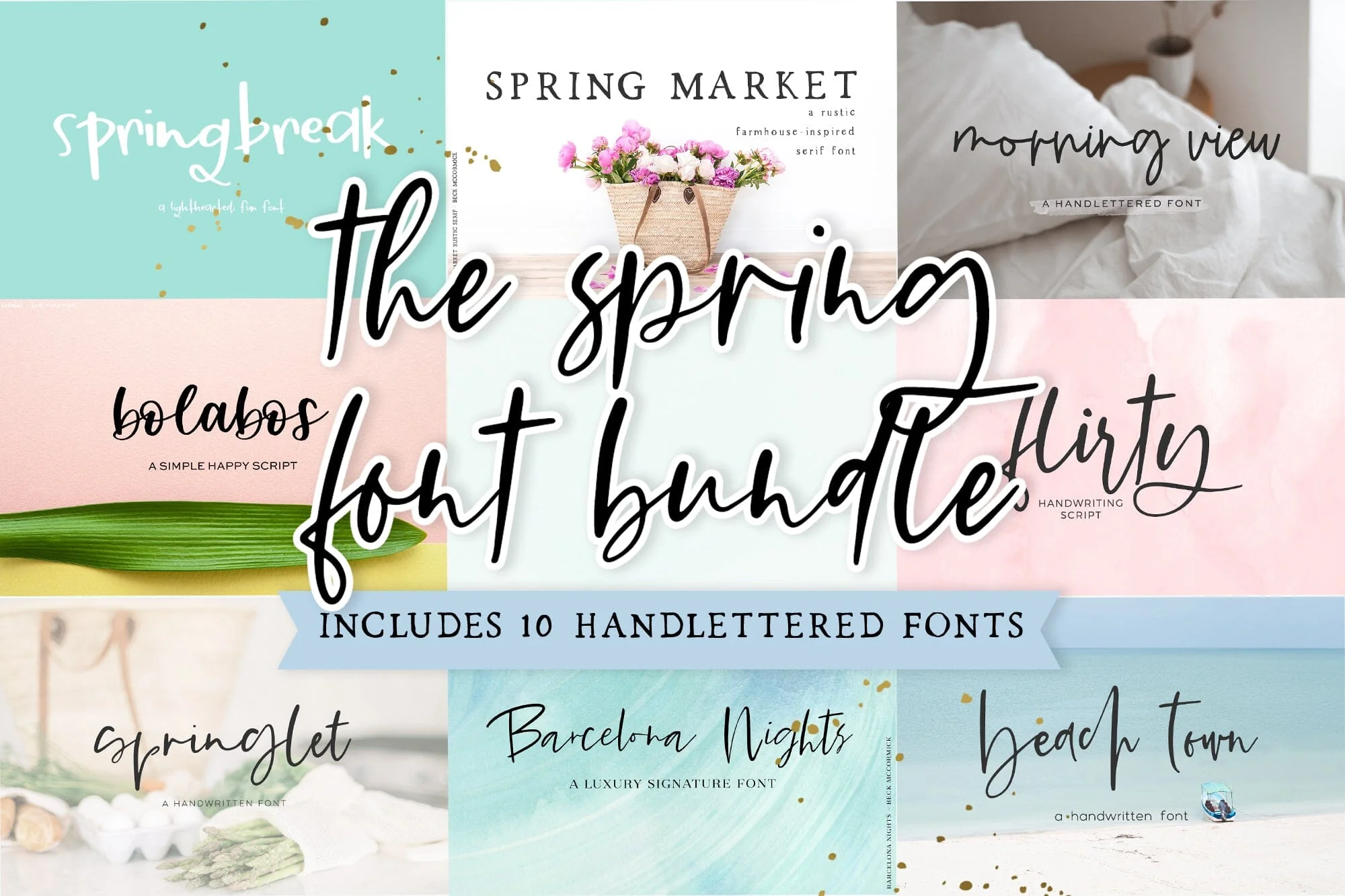
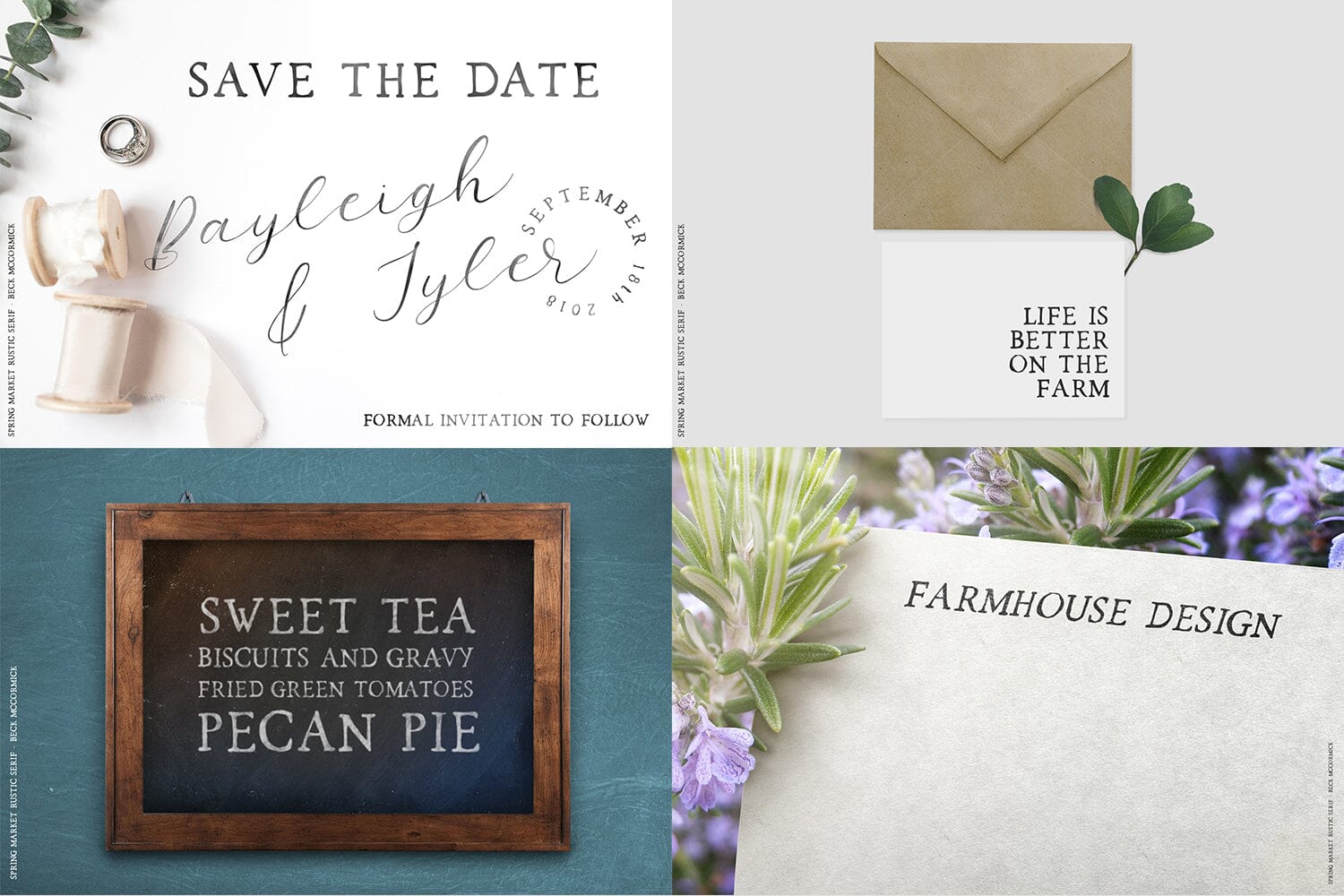
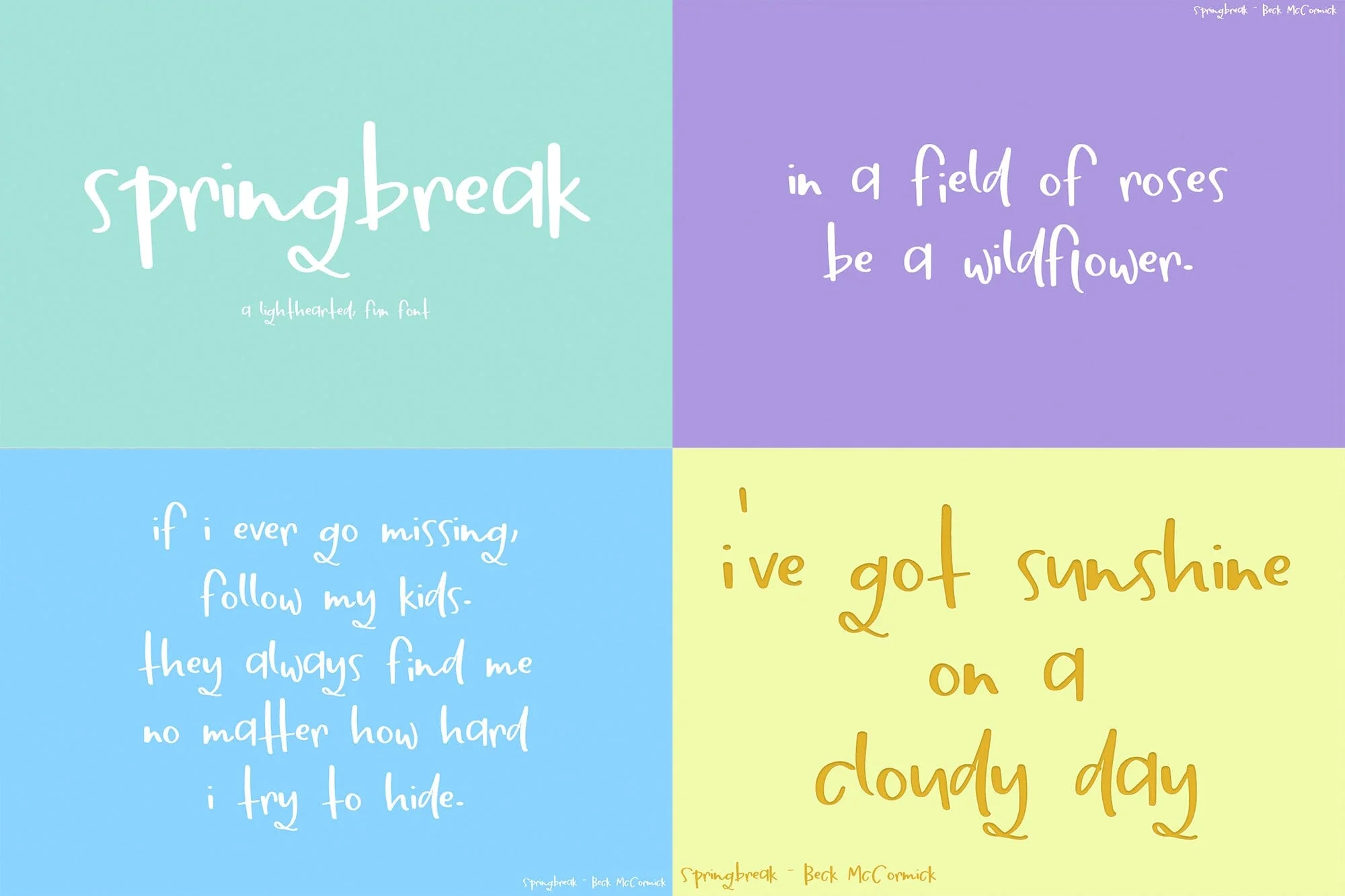
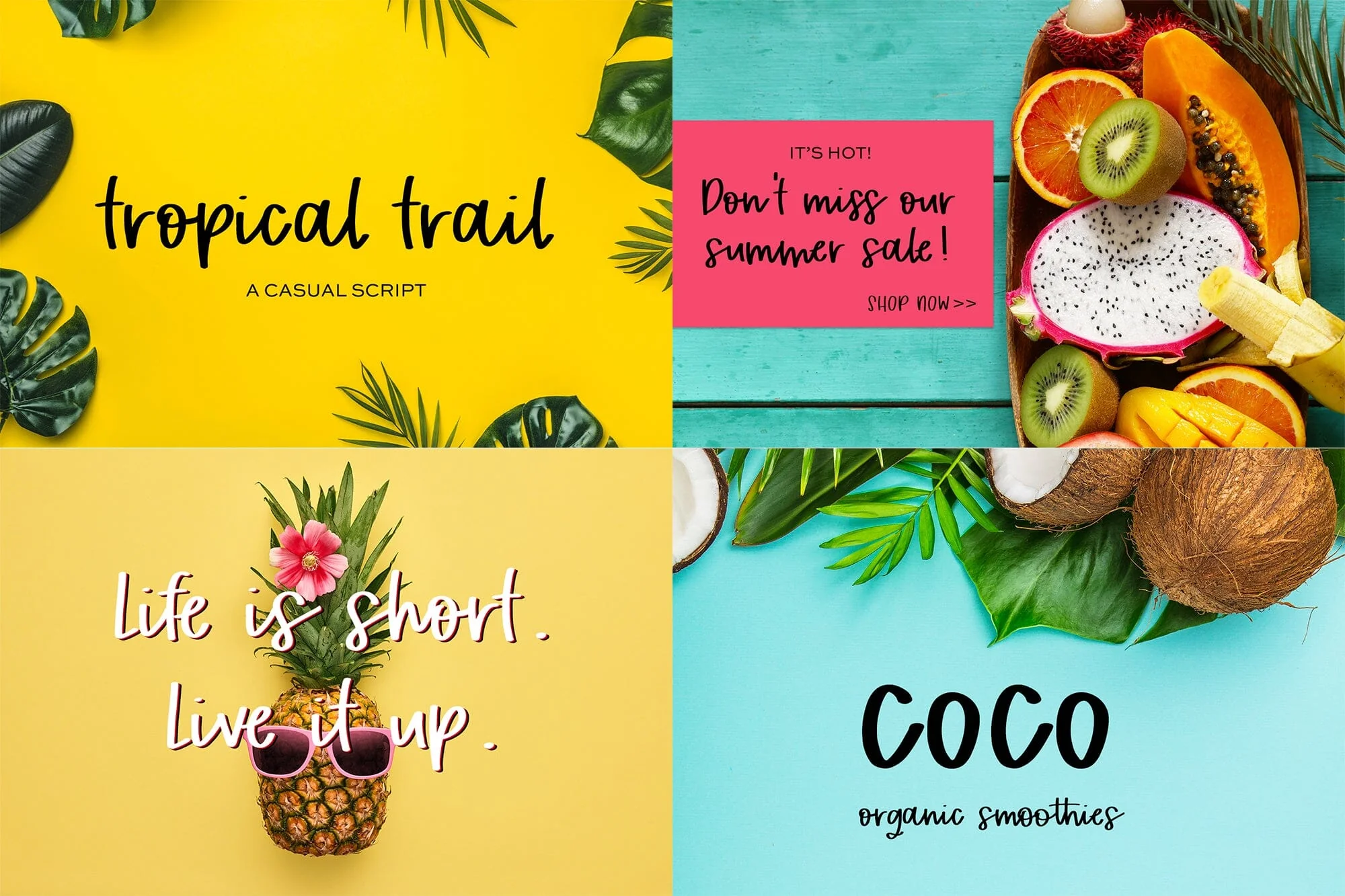
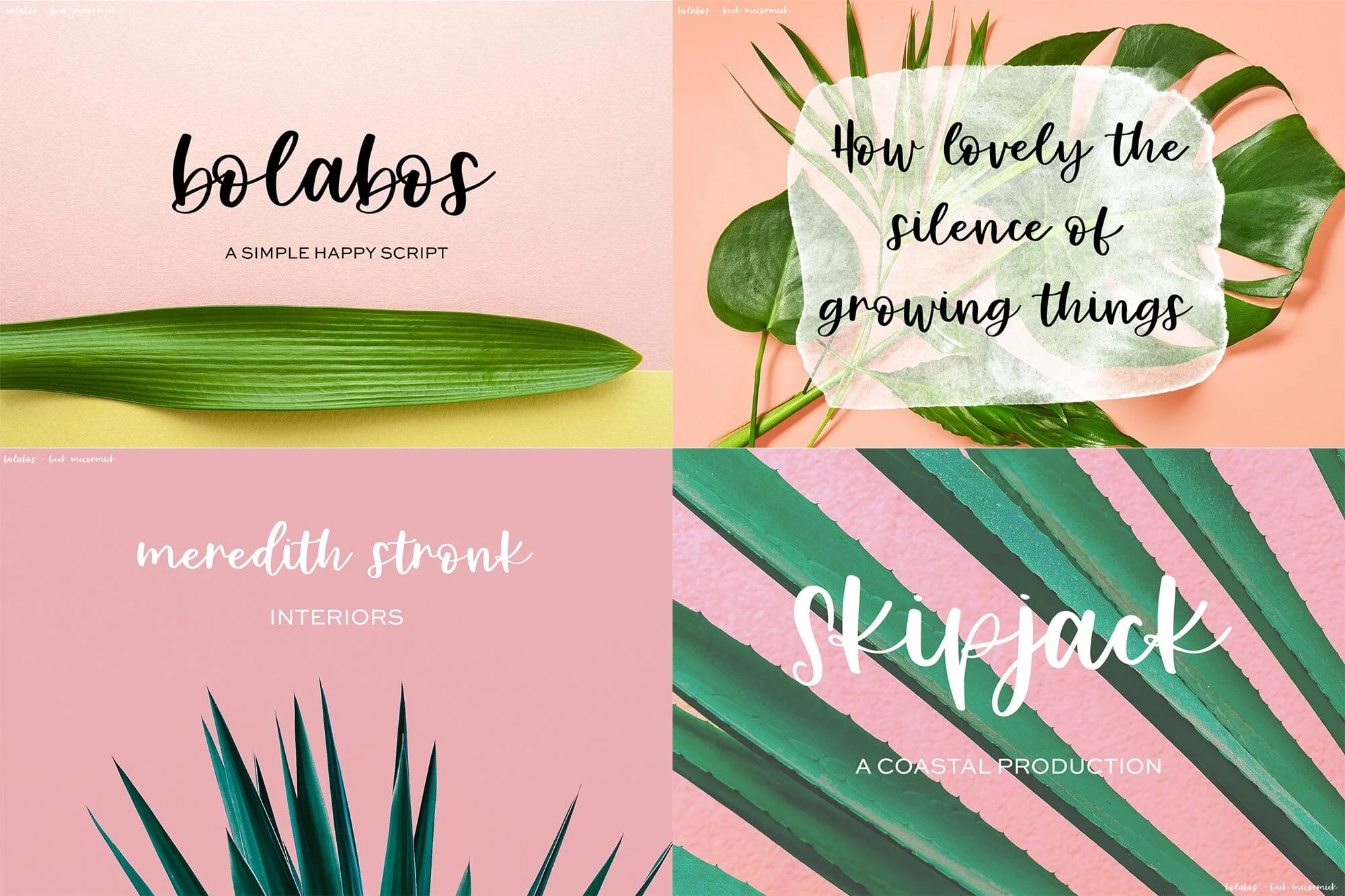
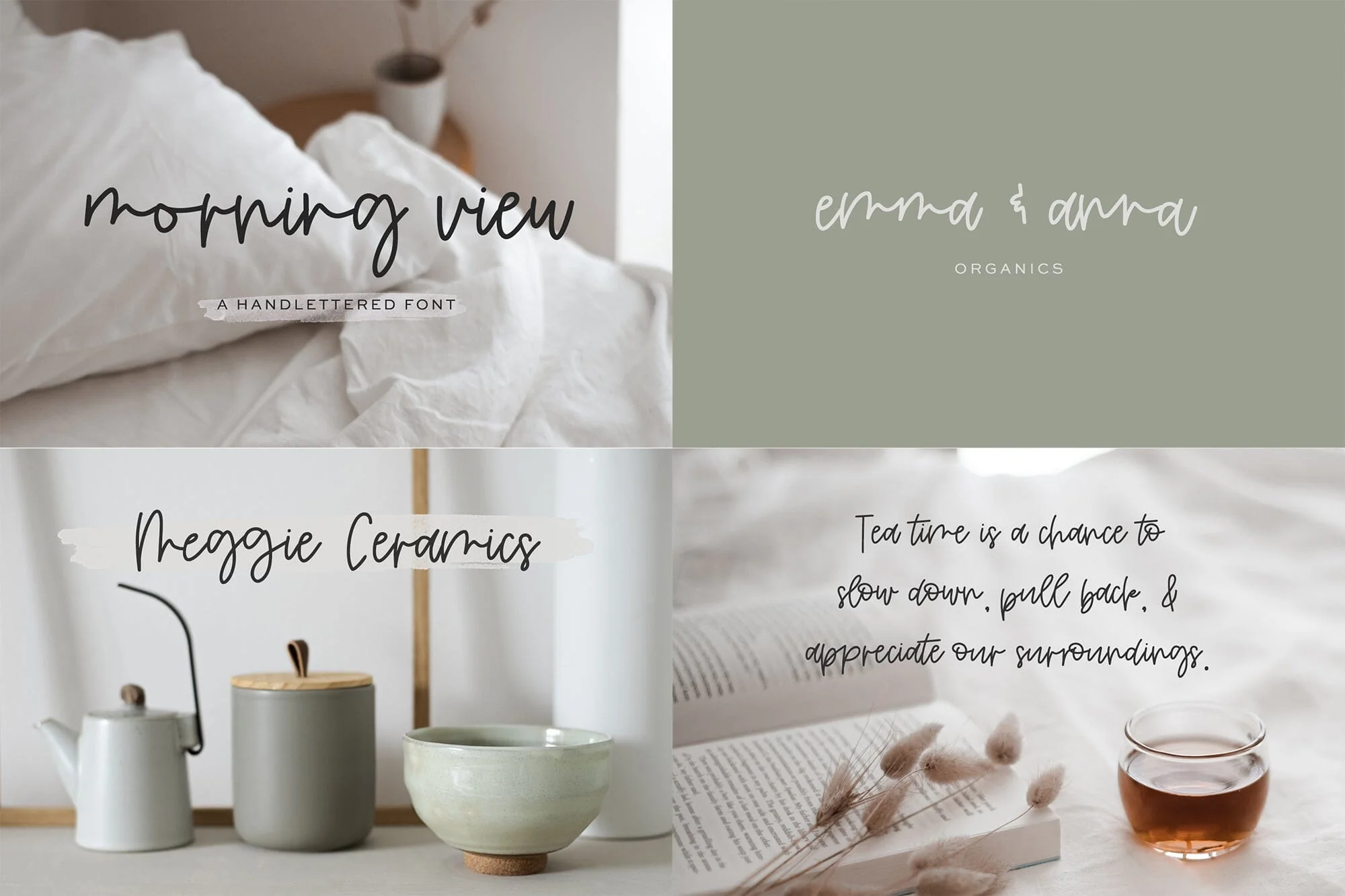
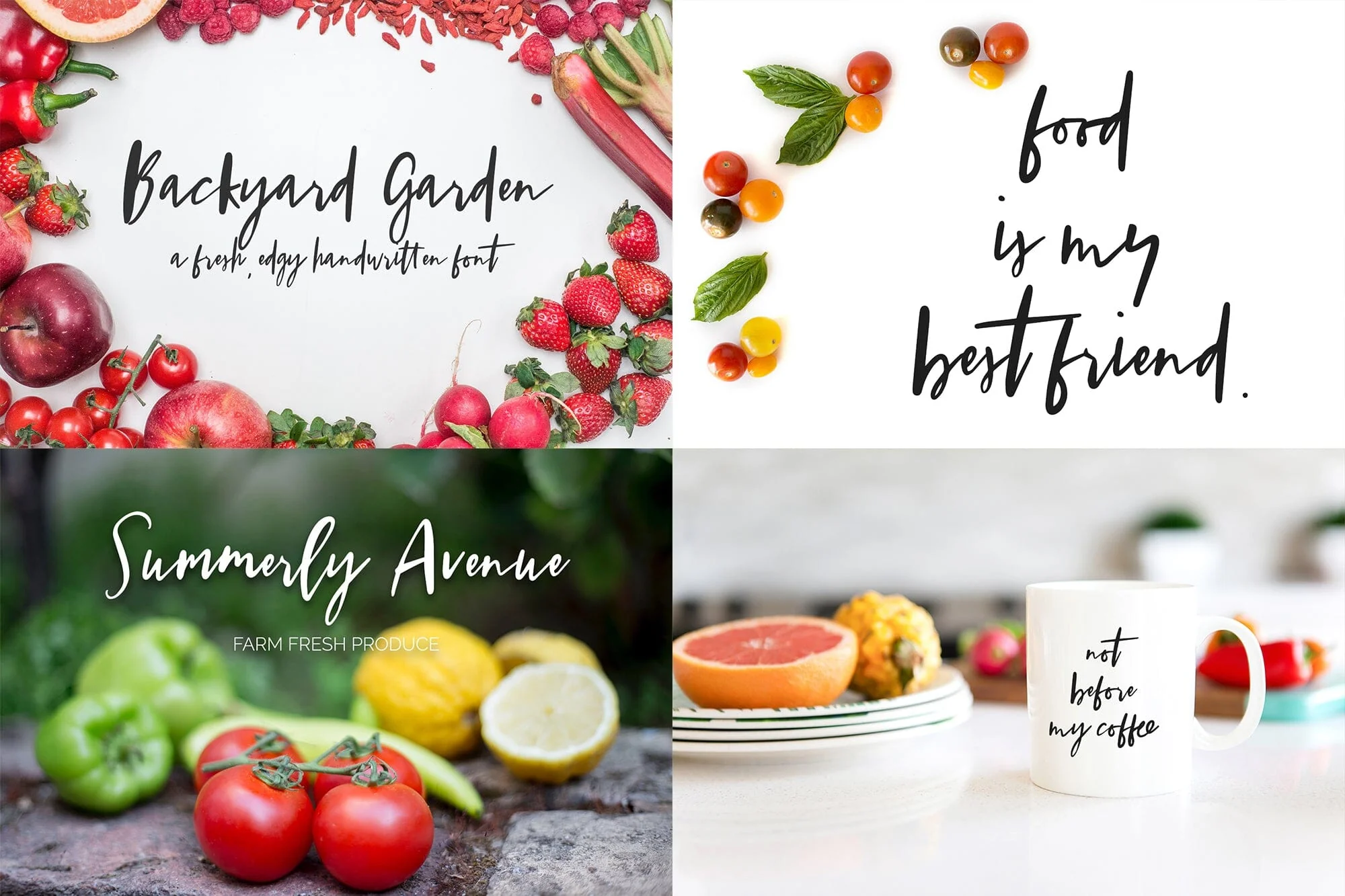
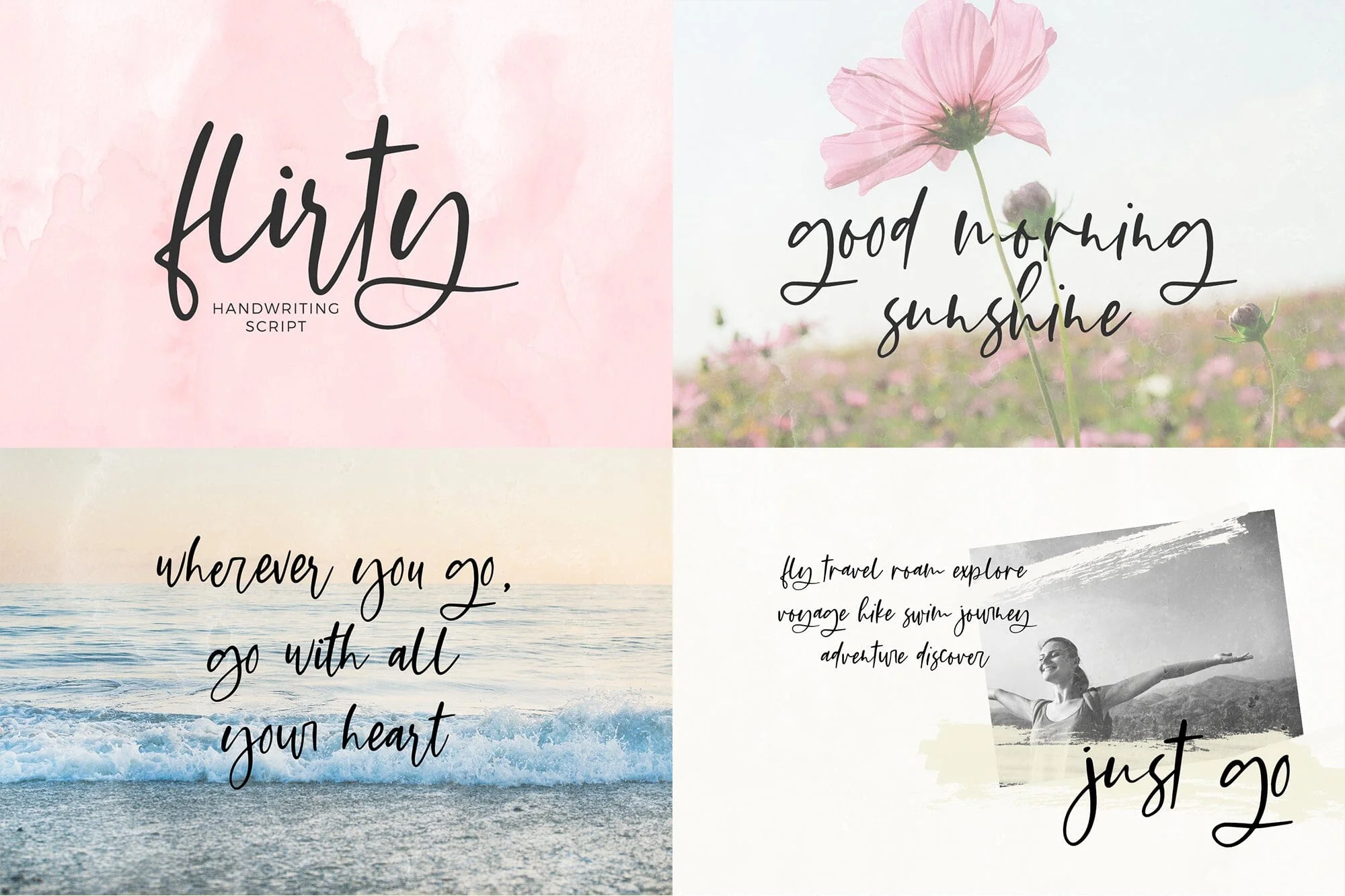
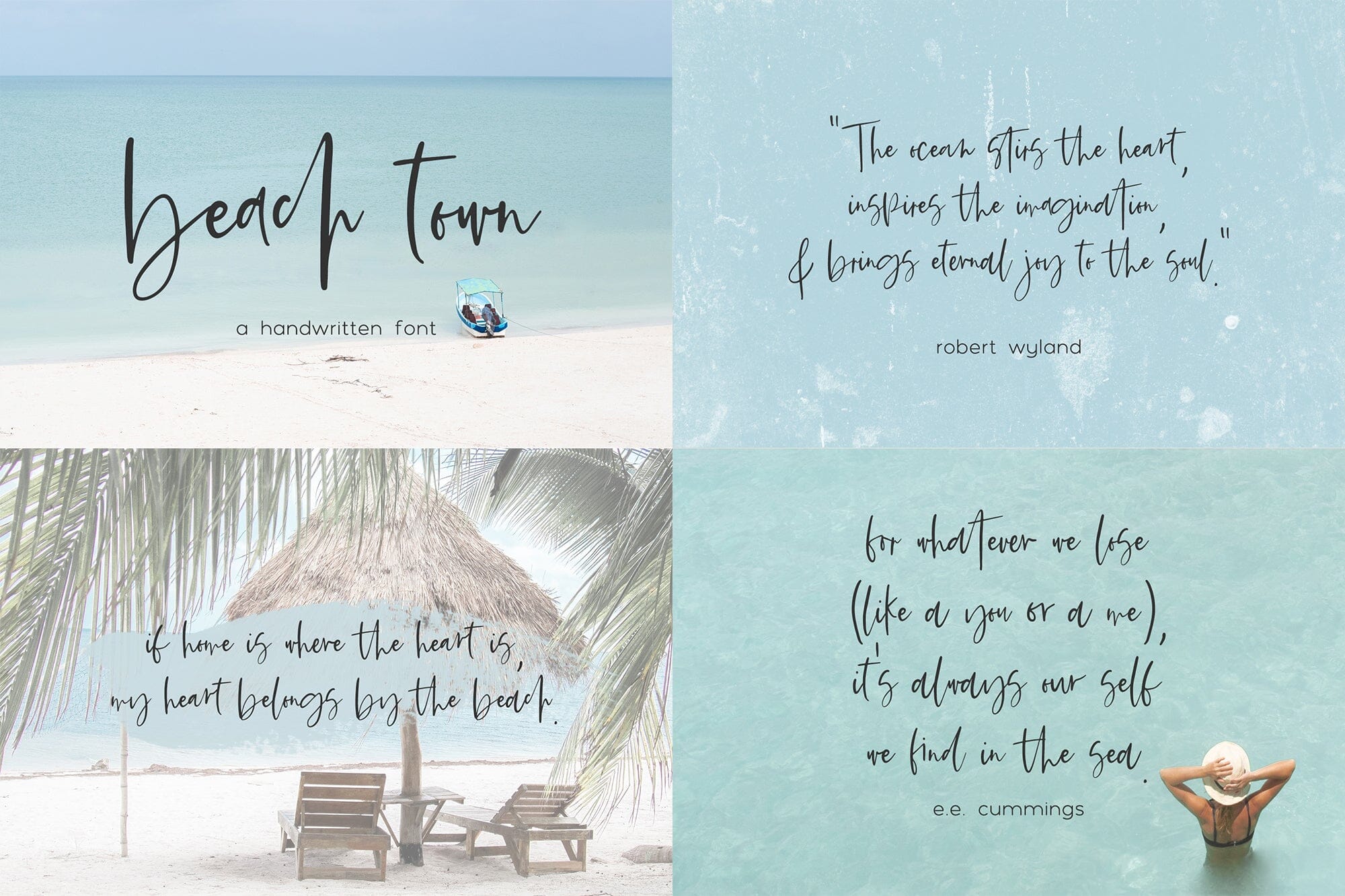
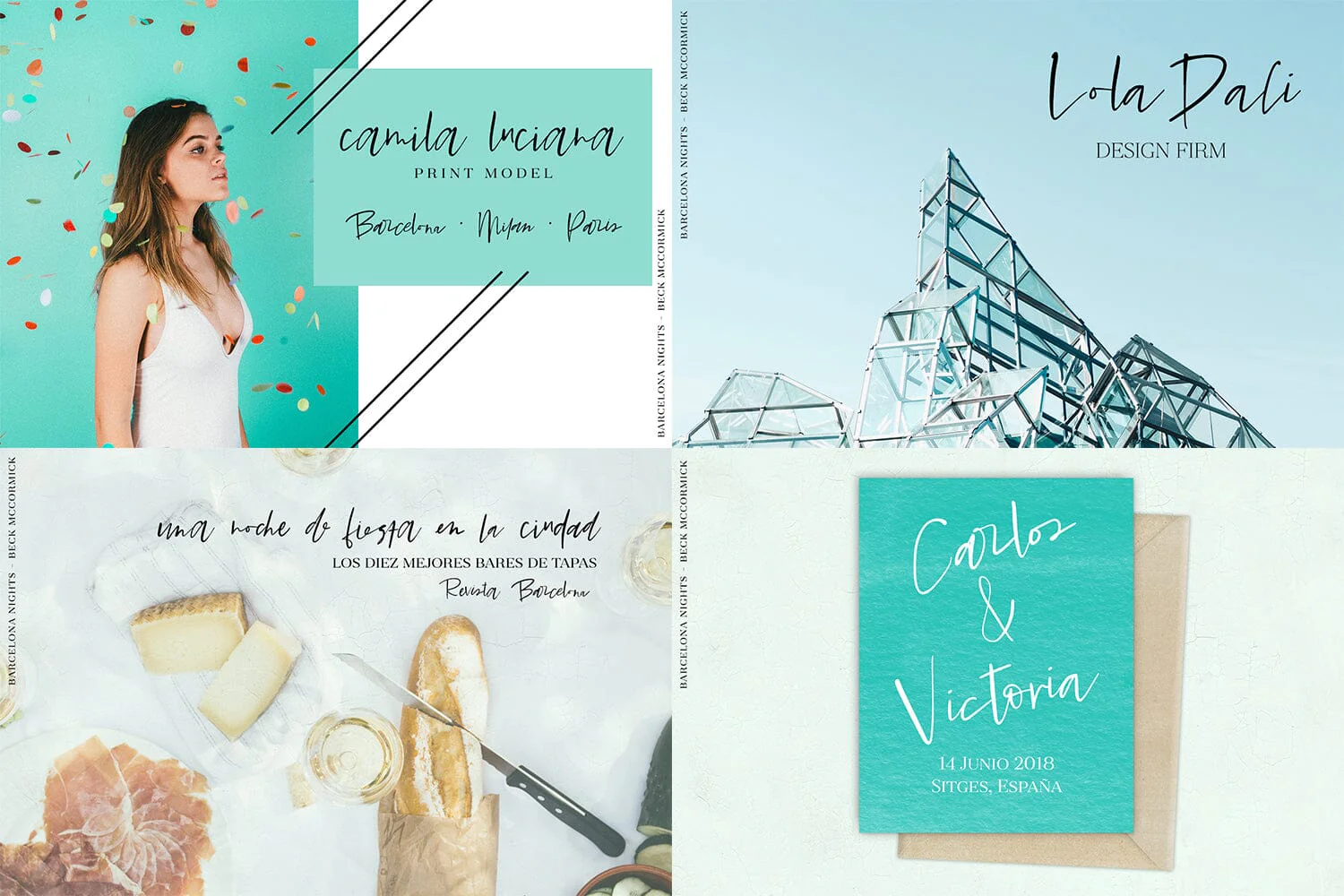
The Spring Font Bundle
Enjoy 10 beautiful handlettered fonts perfect for all types of spring-themed projects. All handlettered, these fonts will be perfect for greeting cards & designs, logos & branding, website elements, quote graphics, and crafting projects on your Cricut or Silhouette machine!
This bundle includes:
Springlet Script
Barcelona Nights Script
Beach Town Script
Flirty Script
Backyard Garden Script
Morning View Script
Bolabos Script
Tropical Trail Script
Springbreak Script
Spring Market Script